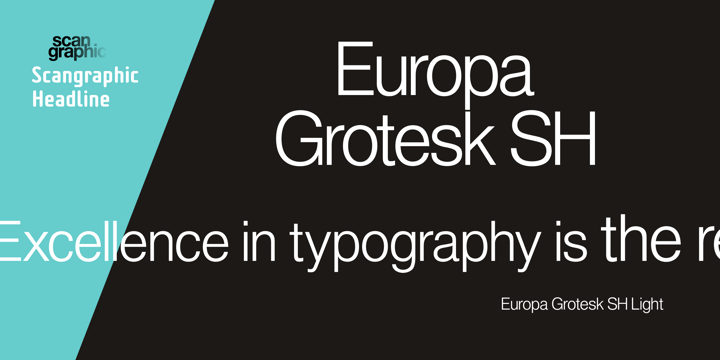
Europa Grotesk SH™
von Scangraphic Digital Type Collection
Die Schriftfamilie Europa Grotesk SH wurde von entworfen und von Scangraphic Digital Type Collection veröffentlicht. Europa Grotesk SH enthält 22 Stile und Familienpaketoptionen. Mehr über diese Familie
Since the release of these fonts most typefaces in the Scangraphic Type Collection appear in two versions. One is designed specifically for headline typesetting (SH: Scangraphic Headline Types) and one specifically for text typesetting (SB Scangraphic Bodytypes). The most obvious differentiation can be found in the spacing. That of the Bodytypes is adjusted for readability. That of the Headline Types is decidedly more narrow in order to do justice to the requirements of headline typesetting. The kerning tables, as well, have been individualized for each of these type varieties. In addition to the adjustment of spacing, there are also adjustments in the design. For the Bodytypes, fine spaces were created which prevented the smear effect on acute angles in small typesizes. For a number of Bodytypes, hairlines and serifs were thickened or the whole typeface was adjusted to meet the optical requirements for setting type in small sizes. For the German lower-case diacritical marks, all Headline Types complements contain alternative integrated accents which allow the compact setting of lower-case headlines.